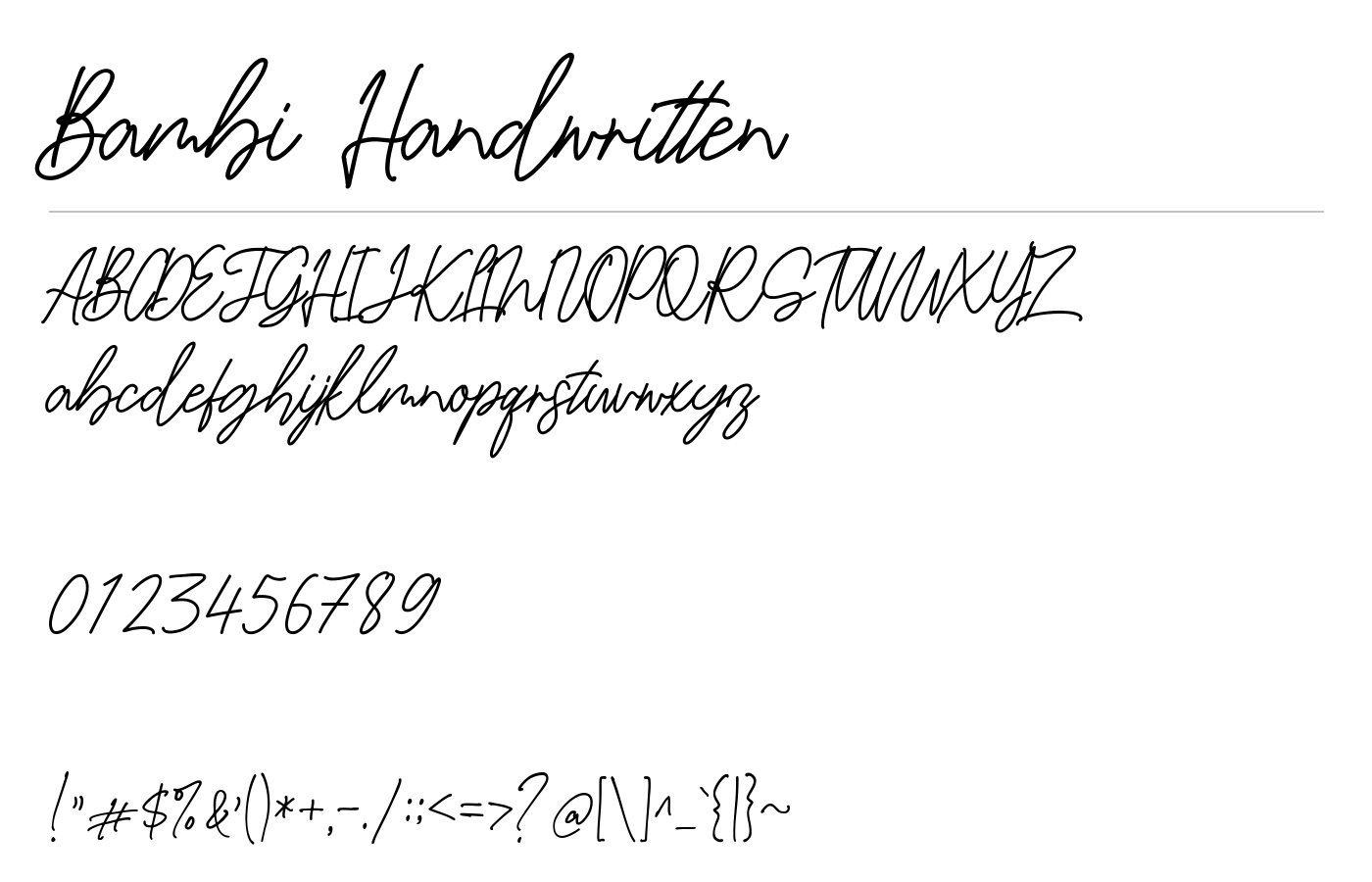
Bambi Handwritten is a delicate and airy script font that mimics natural, elegant handwriting with thin, smooth strokes and a slightly casual feel. Its narrow letterforms and flowing connections make it ideal for adding a personal, stylish touch to invitations, branding, and creative designs where a light, sophisticated script is desired. This font works best in headlines or accents, conveying warmth and artistic flair without overpowering the overall design.
Bambi Handwritten Font
About Bambi Handwritten Font